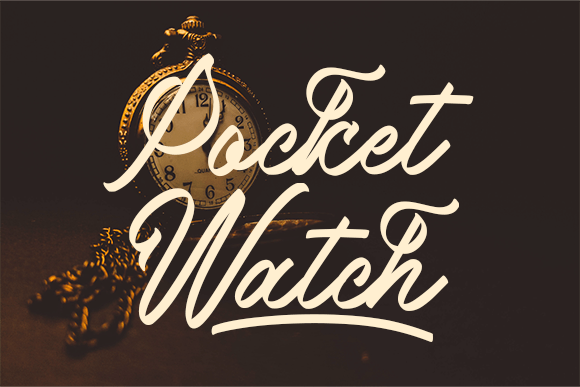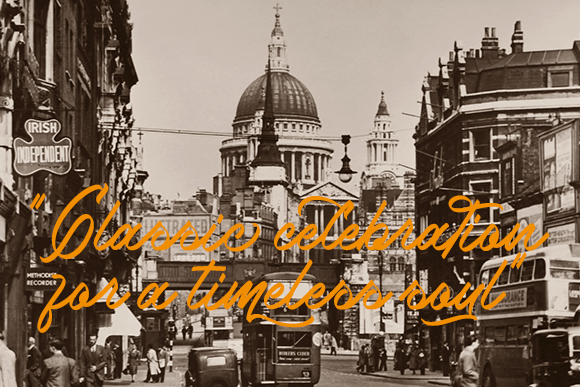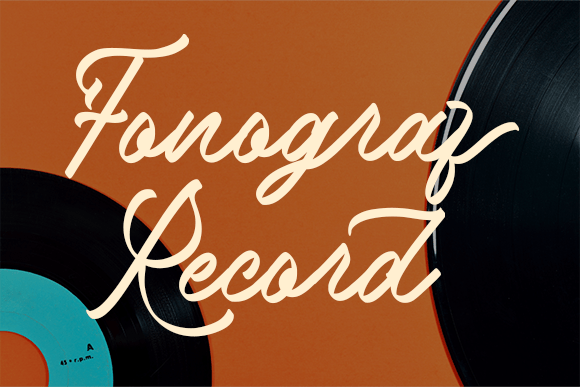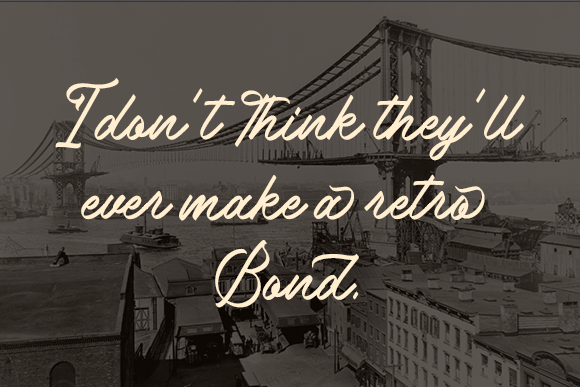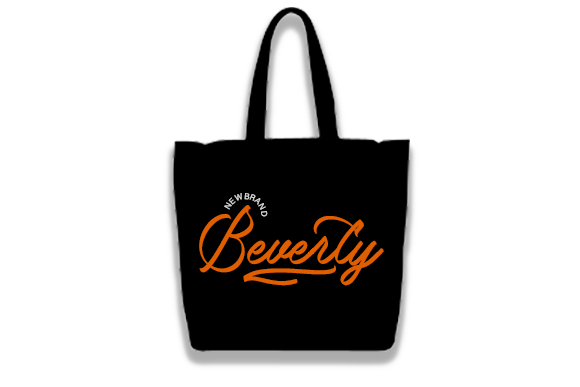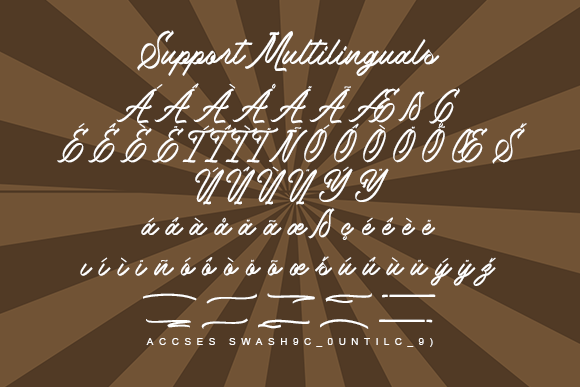
Beverlio Font: Elevate Your Designs with a Retro-Modern Twist
In the world of typography, fonts play a crucial role in conveying the tone and personality of a brand or design. For creative designers and crafters, finding the perfect font can be a daunting task. However, if you’re looking for a font that exudes elegance, casualness, and a touch of vintage charm, look no further than Beverlio Font. In this article, we’ll dive into the world of Beverlio Font, exploring its features, uses, and benefits for designers and crafters.
What is Beverlio Font?
Beverlio Font is a retro-modern style script font that boasts an elegant and casual touch. Its smooth letter curves, combined with a dynamic impression, make it an ideal choice for a wide range of design applications, including branding, logos, posters, and packaging design. The font’s character presents a vintage feel that is warm, yet stylish, making it perfect for creative designers who want to add a classy and friendly touch to their work.
Key Features of Beverlio Font
- Retro-Modern Style: Beverlio Font features a unique retro-modern style that blends classic elegance with modern flair.
- Elegant and Casual: The font’s smooth curves and dynamic impression give it an elegant and casual feel, making it suitable for a wide range of design applications.
- Vintage Charm: Beverlio Font’s character presents a warm, vintage feel that adds a touch of nostalgia to any design.
- High Versatility: The font is perfect for branding, logos, posters, packaging design, and more.
Uses of Beverlio Font
Beverlio Font is an incredibly versatile font that can be used in a variety of design applications, including:
- Branding: Create a unique and memorable brand identity with Beverlio Font.
- Logos: Design a stunning logo that showcases your brand’s personality and style.
- Posters: Add a touch of elegance and sophistication to your posters with Beverlio Font.
- Packaging Design: Elevate your packaging design with a font that exudes class and friendliness.
Benefits of Using Beverlio Font
So, why choose Beverlio Font for your design projects? Here are just a few benefits:
- Unique and Memorable: Beverlio Font’s retro-modern style and vintage charm make it a unique and memorable choice for designers.
- Easy to Read: The font’s smooth curves and clear lettering make it easy to read, even at smaller sizes.
- Highly Versatile: Beverlio Font can be used in a wide range of design applications, from branding and logos to posters and packaging design.
- Time-Saving: With Beverlio Font, you can create stunning designs in no time, thanks to its ease of use and versatility.
Tips for Using Beverlio Font
To get the most out of Beverlio Font, here are a few tips to keep in mind:
- Experiment with Sizes: Try out different font sizes to see how Beverlio Font looks in various contexts.
- Pair with Other Fonts: Combine Beverlio Font with other fonts to create a unique and visually appealing design.
- Play with Colors: Experiment with different colors to see how they affect the overall look and feel of your design.
In conclusion, Beverlio Font is a stunning retro-modern style script font that offers a unique blend of elegance, casualness, and vintage charm. With its high versatility, ease of use, and range of design applications, it’s an ideal choice for creative designers and crafters looking to elevate their designs. Whether you’re working on a branding project, logo design, poster, or packaging design, Beverlio Font is sure to impress. So why not give it a try and see the difference it can make in your designs?